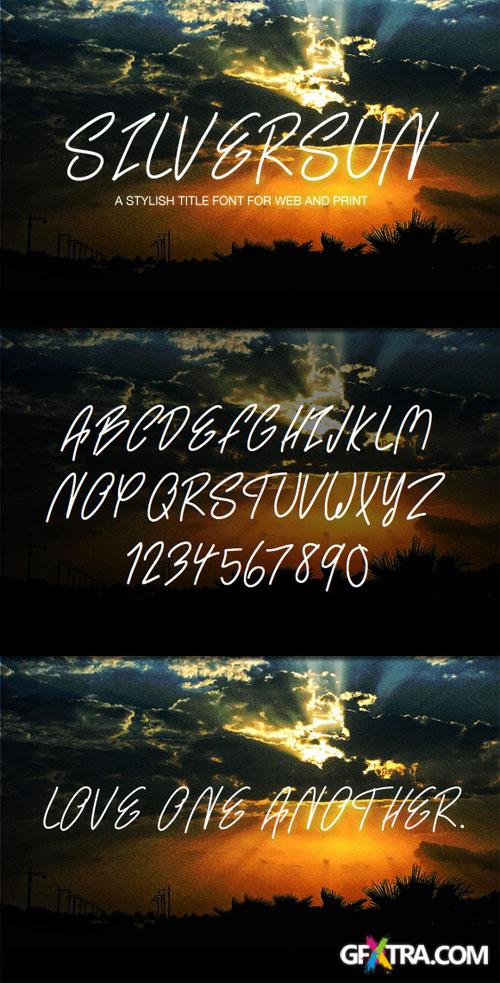
WeGraphics - SilverSun - A Handwritten Web Font
SilverSun is a slanted hand written caps font. The download includes web font formats and demo HTML and CSS. Everything you need to embed this stylish font into your next web project.